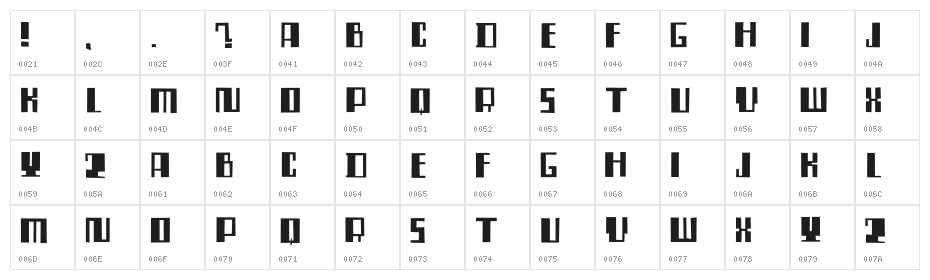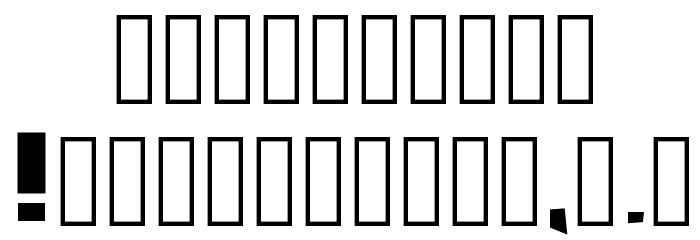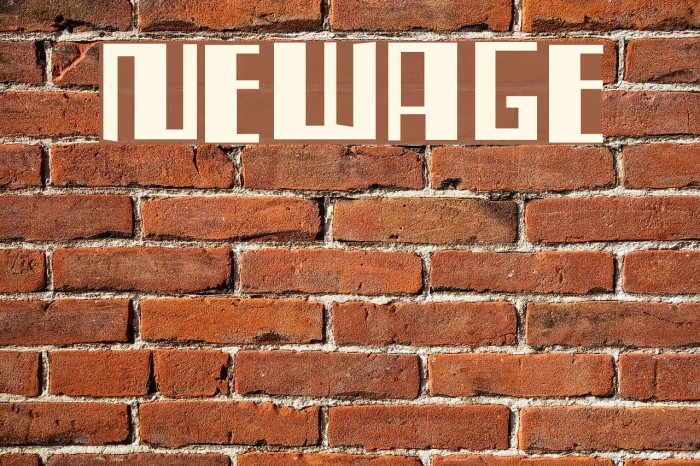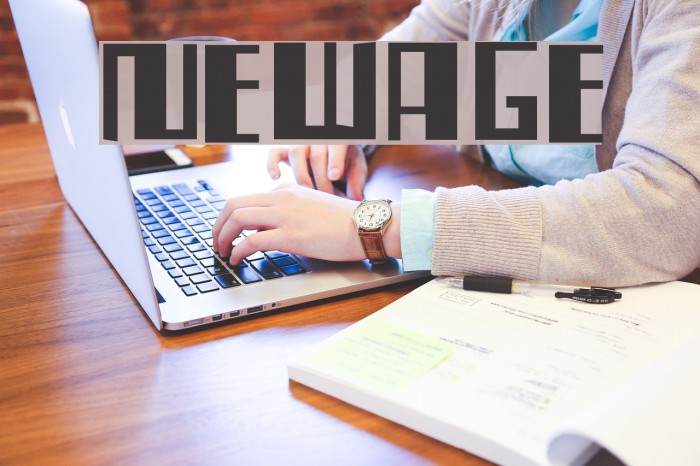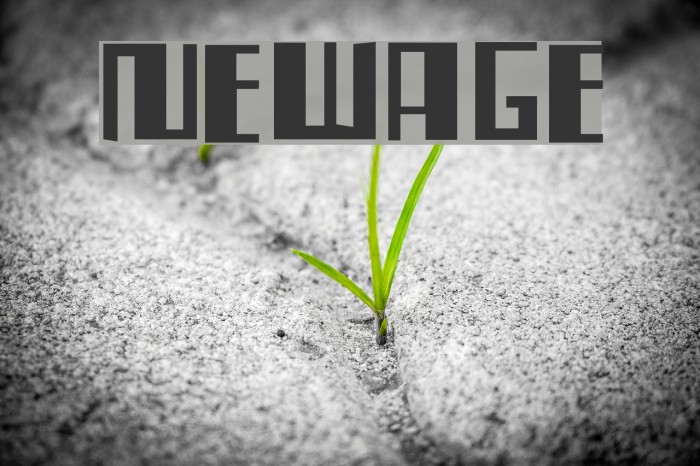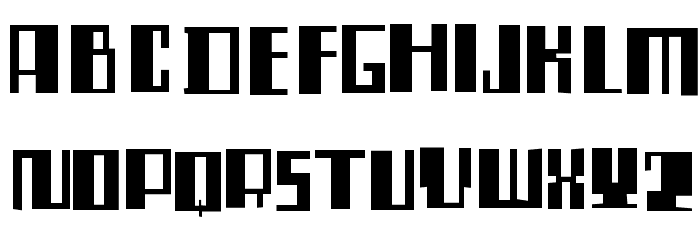
NewAge Font
NewAge Description
This font features a bold and geometric design, characterized by its blocky and angular letterforms. The uppercase and lowercase letters share a consistent height, contributing to a uniform appearance. The characters are constructed with straight lines and sharp corners, giving them a futuristic and digital feel. The numbers and special characters maintain the same stylistic approach, ensuring cohesion across all glyphs. The font's strong visual impact makes it suitable for attention-grabbing designs.